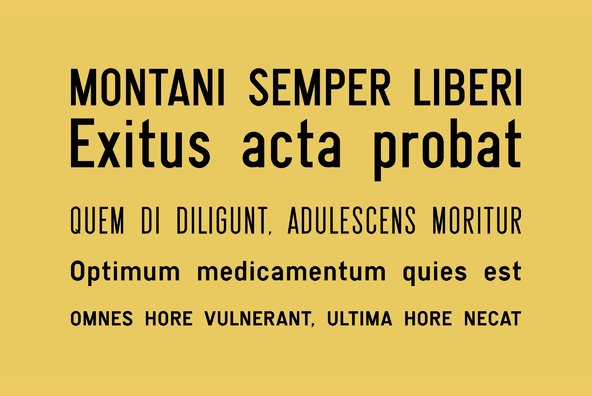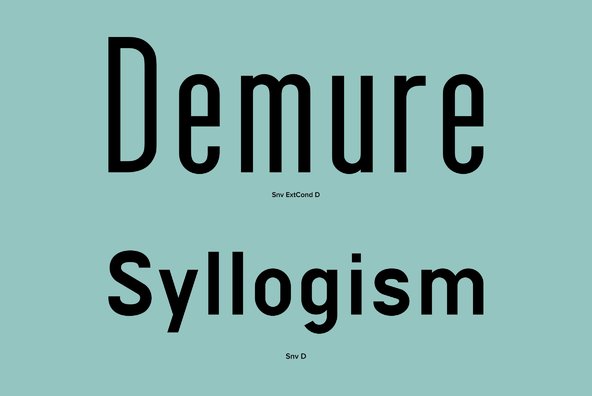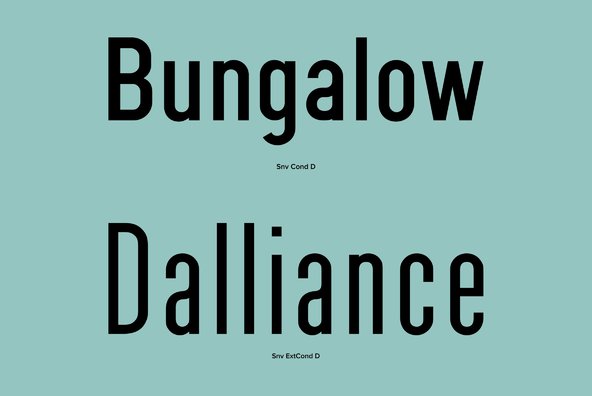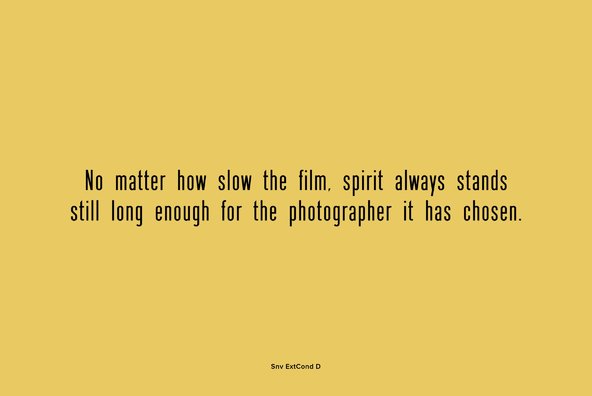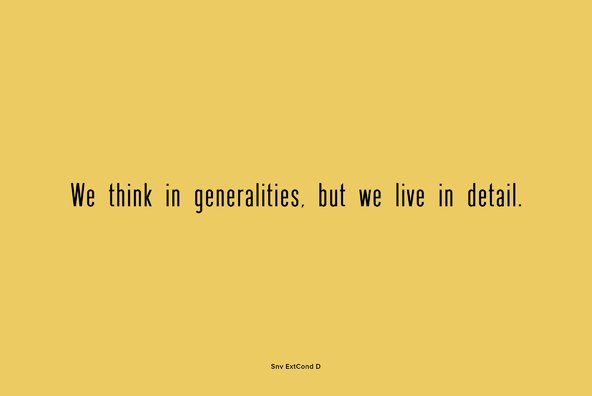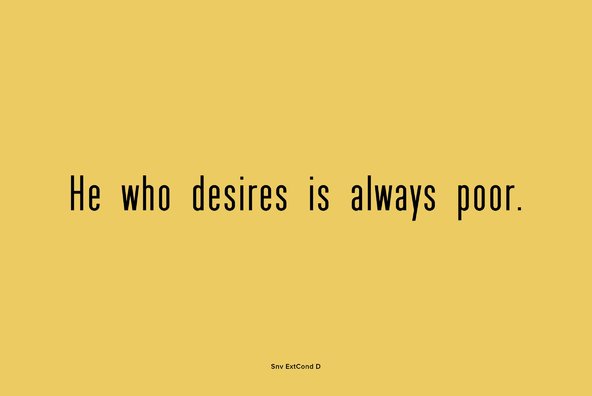
If you've ever driven a vehicle in Switzerland, Belgium or Luxembourg, you've likely seen SNV through your windshield, sparkling with powerful utility on reflective aluminum signs by the roadside and on overpasses. Designed in 1972 by the Swiss utility gurus at the Verein Schweizer Straßenfachmänner foundry, and digitized and distributed commercially by URW as part of their Sign Collection, the typeface is still in use today on every traffic sign in Belgium & Luxembourg, although the Swiss have since begun using ASTRA-Frutiger.
SNV has a somewhat more squarish design aesthetic than its ovular cousin SAA, and also differs in that it contains a lowercase alphabet in addition to the uppercase, as opposed to the uppercase-only SAA Series A. SNV and SAA comprise the two basic typeface styles exhibited on most vehicle license plates in the United States and Canada. The font is available in three weights.